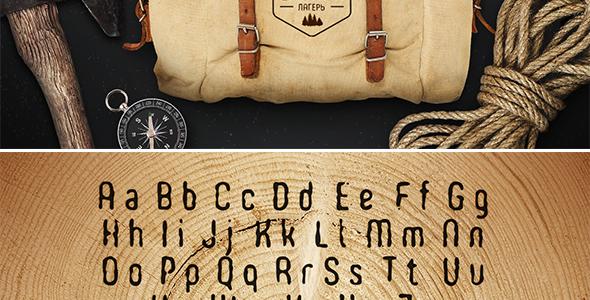
WoodBurn Font
Hi people! Sloth Astronaut is glad to introduce his new sans-serif font WoodBurn. Font supports cyrillic and latin alphabet. Here’s What’s Included: - WoodBurn-Bold (OTF, TTF and WOFF files) - WoodBurn-Regular (OTF, TTF and WOFF files) - BONUS: Hand drawn illustrations (EPS 10, AI CS5) Have Fun and May the Force be with You!